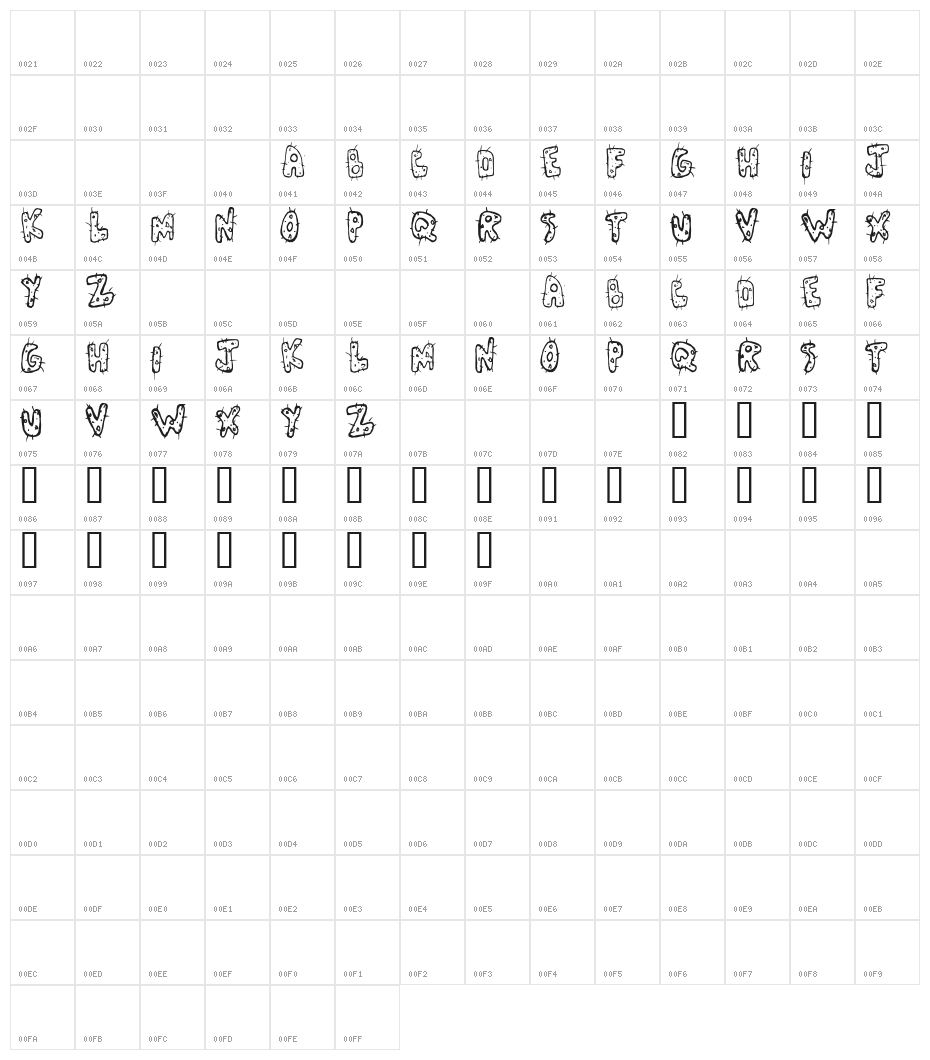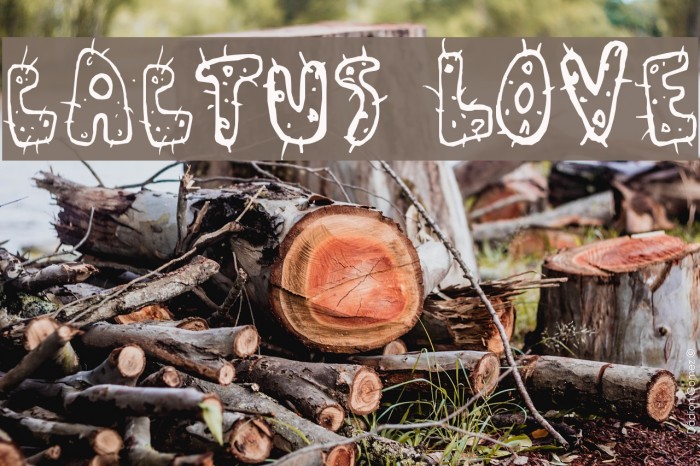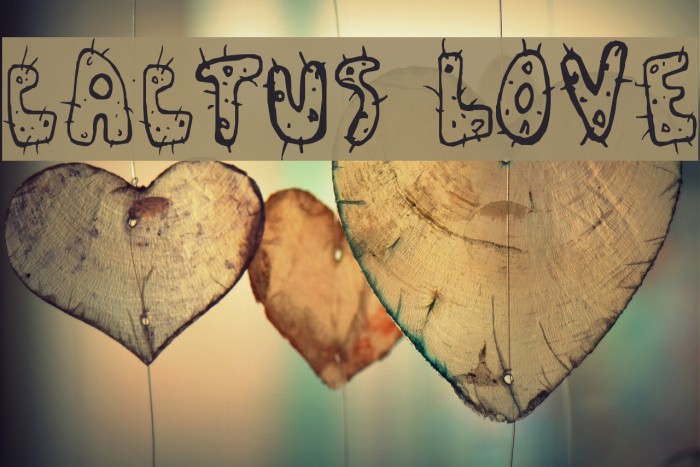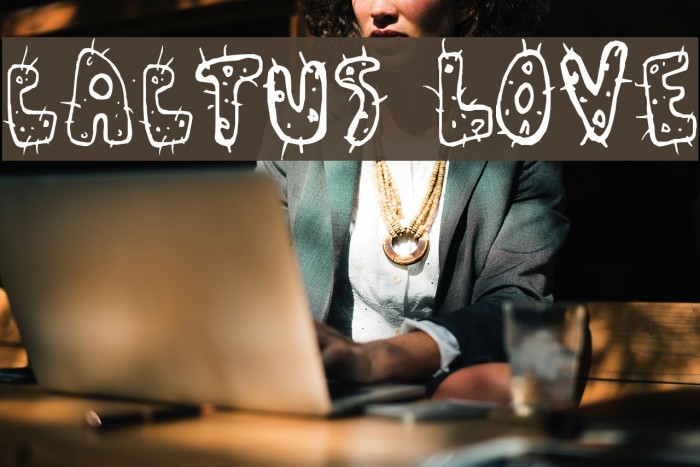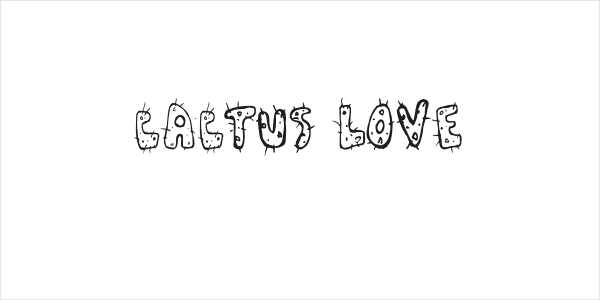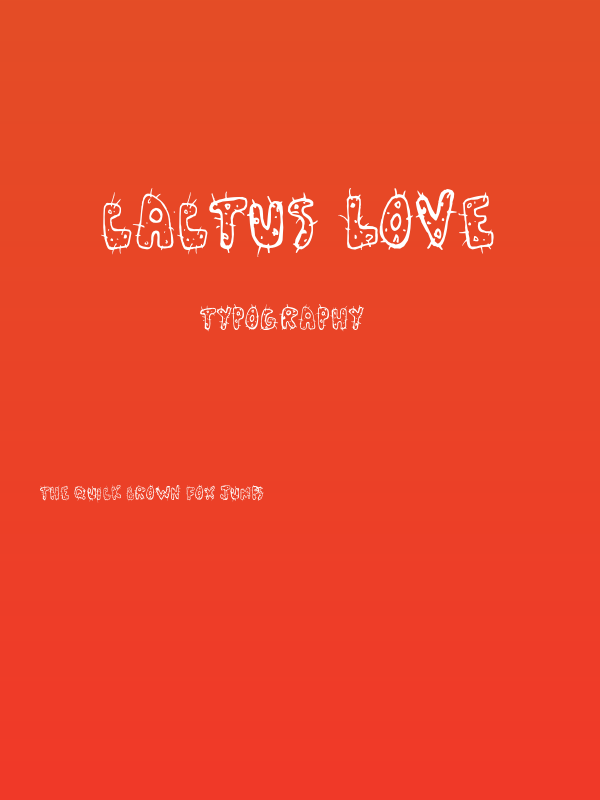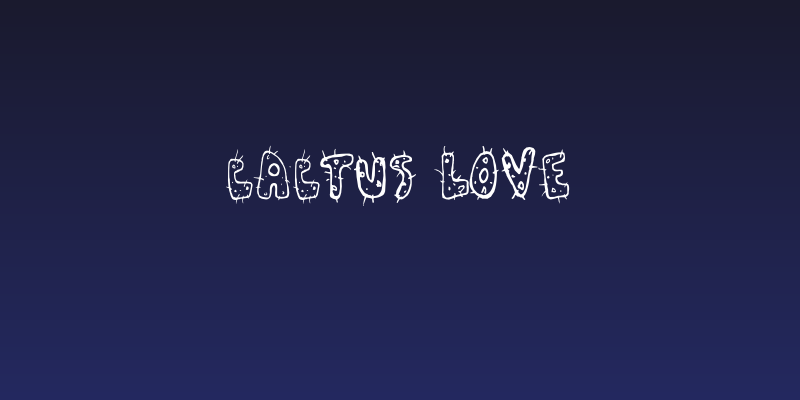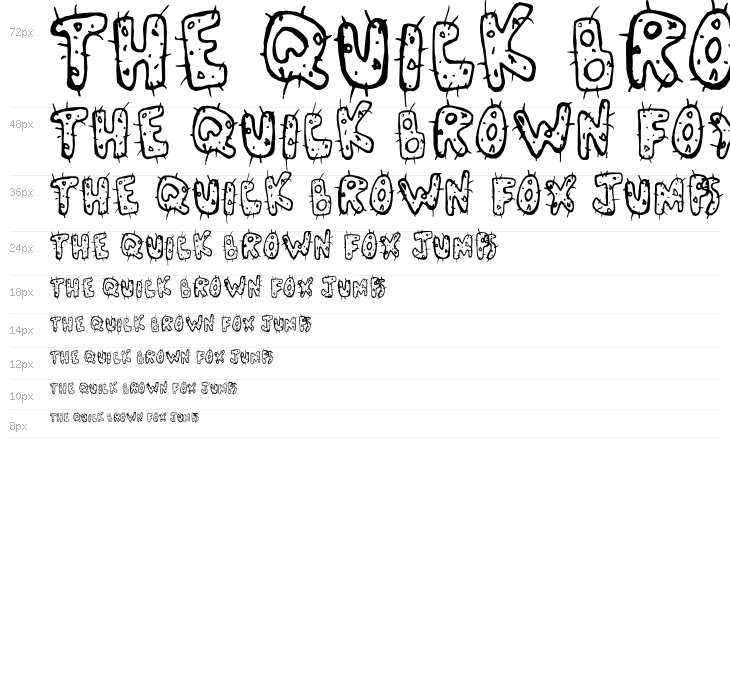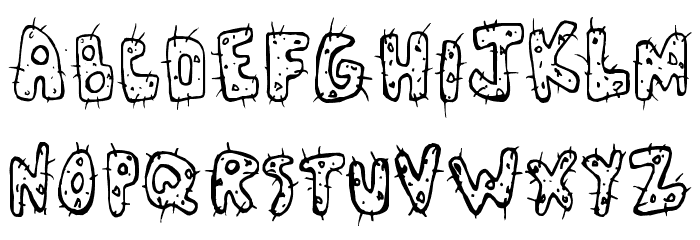
Cactus Love Font
This playful and whimsical font features a unique design inspired by the natural form of cacti. Each character is adorned with small spikes and dots, mimicking the texture and appearance of a cactus plant. The letters are bold and rounded, with a hand-drawn quality that adds a touch of charm and creativity. The overall look is both fun and distinctive, making it ideal for projects that require a quirky and eye-catching typeface. The font maintains a consistent style across both uppercase and lowercase letters, ensuring a cohesive appearance in any text. Its decorative nature makes it suitable for a variety of creative applications.
| Proposed Projects | Ideal for children's books, greeting cards, posters, and branding projects that seek a fun and unique aesthetic. |